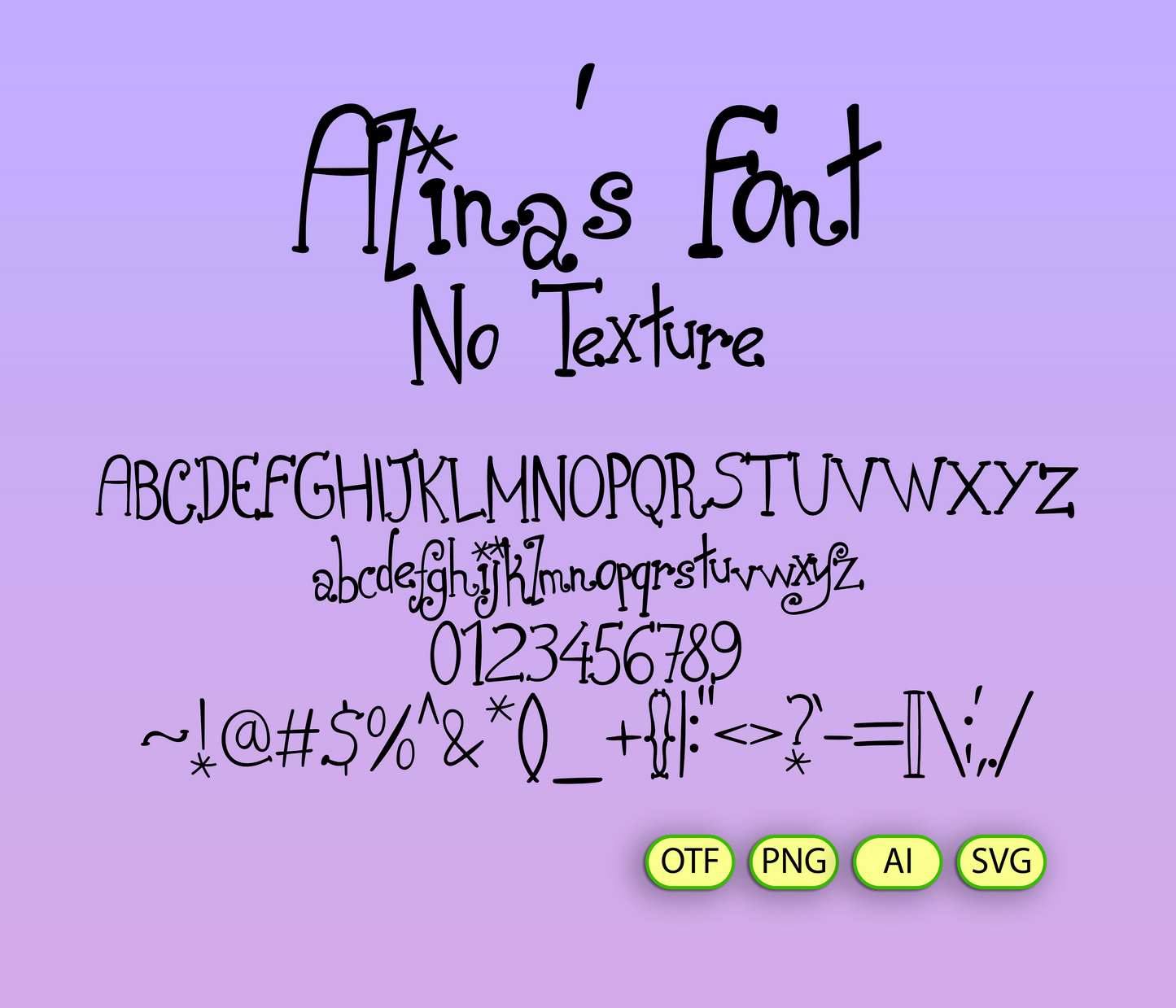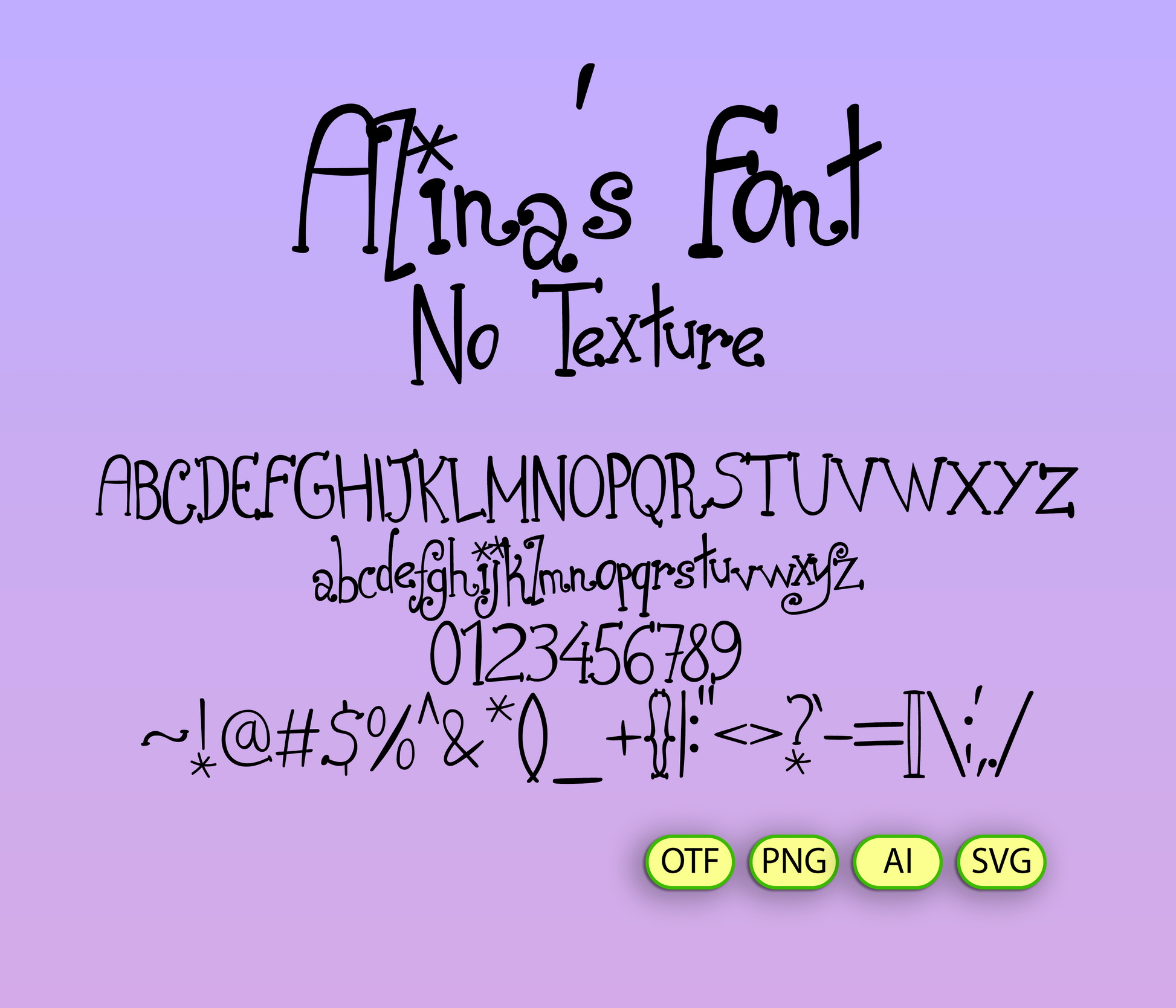
Whimsical Wishmakers Font
Enter a world of magical mayhem with our Whimsical Wishmakers font, bringing to life the zany spirit of magical guardians and their chaotic adventures. Perfect for adding a touch of enchanted mischief to your creative projects.
Our Whimsical Wishmakers font features quirky curves and playful elements reflecting the spirit of magical mayhem. Ideal for:
1. Event Promotions: Create wacky invites, posters, banners for magical celebrations
2. Merchandise Design: Design fun T-shirts, posters, accessories for fans of magical chaos
3. Digital Media: Enhance websites, blogs, social media with mischievous headers and graphics
4. Story Content: Perfect for wish-granting tales, magical journals, enchanted art projects
5. Personal Projects: Ideal for scrapbooking, DIY crafts, and chaos-themed decorations
Our font celebrates the magic of wishes and childhood wonder, bringing zany fun to every design. Whether creating party materials, designing merchandise, or adding whimsy to personal projects, this font captures the spirit of magical mischief.